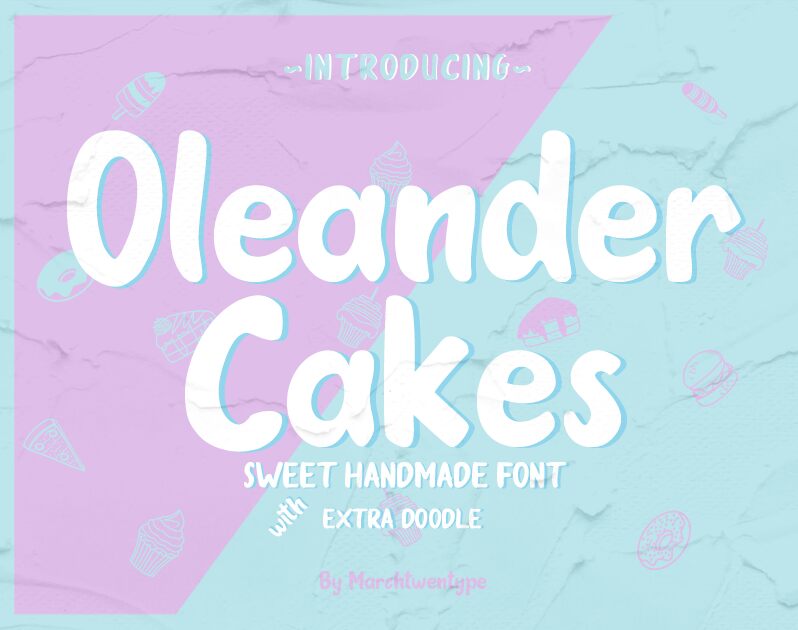
Oleander Cakes is a captivating display font that exudes a whimsical, hand-crafted charm. Crafted with meticulous brush strokes, this typeface delivers a distinct, cartoon-inspired aesthetic that effortlessly bridges the gap between playful and sophisticated. With four versatile styles - regular, italic, outline, and outline italic - Oleander Cakes offers a harmonious blend of flexibility and visual impact.
This remarkable font is an exceptional choice for branding, logo design, posters, book covers, and a wide array of print and digital applications. Its unique character and bold personality make it a standout selection for designers seeking to infuse their work with a touch of artisanal flair and enduring appeal.